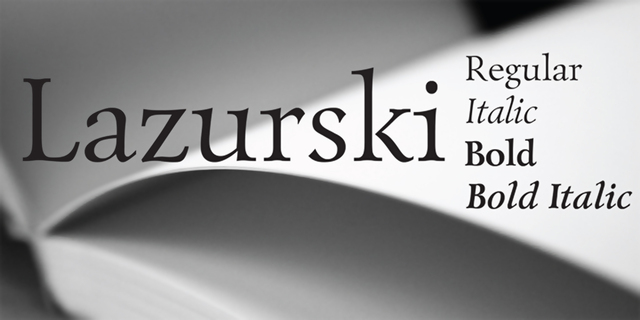
About Lazurski was designed at Polygraphmash in 1984 by Vladimir Yefimov. It is based on a hot-metal typeface (1962) by Moscow book designer Vadim Lazurski (1909-1994), inspired by the early 16th century typefaces of Italian Renaissance. The typeface is useful for text and display composition in fiction and art books. An expert set was added at ParaType (ParaGraph) in 1997. A new improved digital design and the extention of character set was made by Isabella Chaeva and released by ParaType in 2014.
comme il faut, noble, conservative, traditional, classic, pretentious, artistic, silver, educated, sharp, masterful, architectural, refined, aristocratic, elite, high-quality, historical, humanitarian, dynamic, autumn, sacral, polite, elegant, beautiful, orderly, regardful, diligent, tactful, exemplary